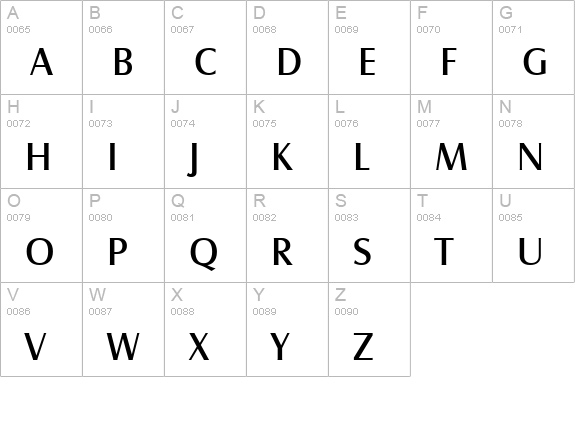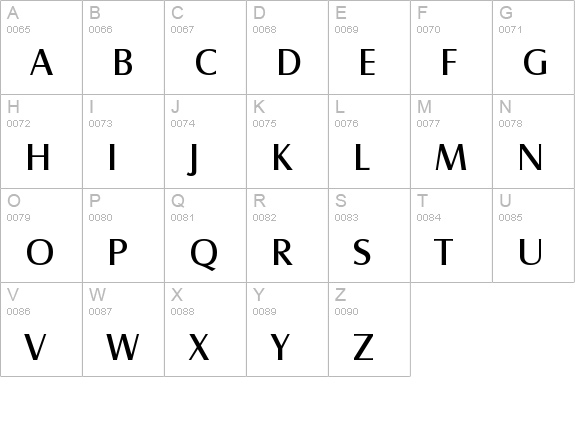
Canossa-Book Font Details
Canossa-Book is a comfortable, highly readable variant in the Canossa typeface family \xE2\x80\x94 well suited to long-form body text, articles, and editorial content.
Canossa-Book font is a modern and elegant typeface that is perfect for a wide range of design projects. Its sleek lines and balanced proportions make it a versatile choice for both headers and body text. The Canossa-Book font exudes sophistication and professionalism, making it ideal for projects that require a touch of refinement. The best part about Canossa-Book font is that it is completely free to download at FontsMarket.com. This means that you can add this exquisite typeface to your font collection without any cost. Whether you are working on a personal project or a professional design, Canossa-Book font is sure to elevate your work with its timeless appeal. Download it today and enhance your designs with this exceptional font.